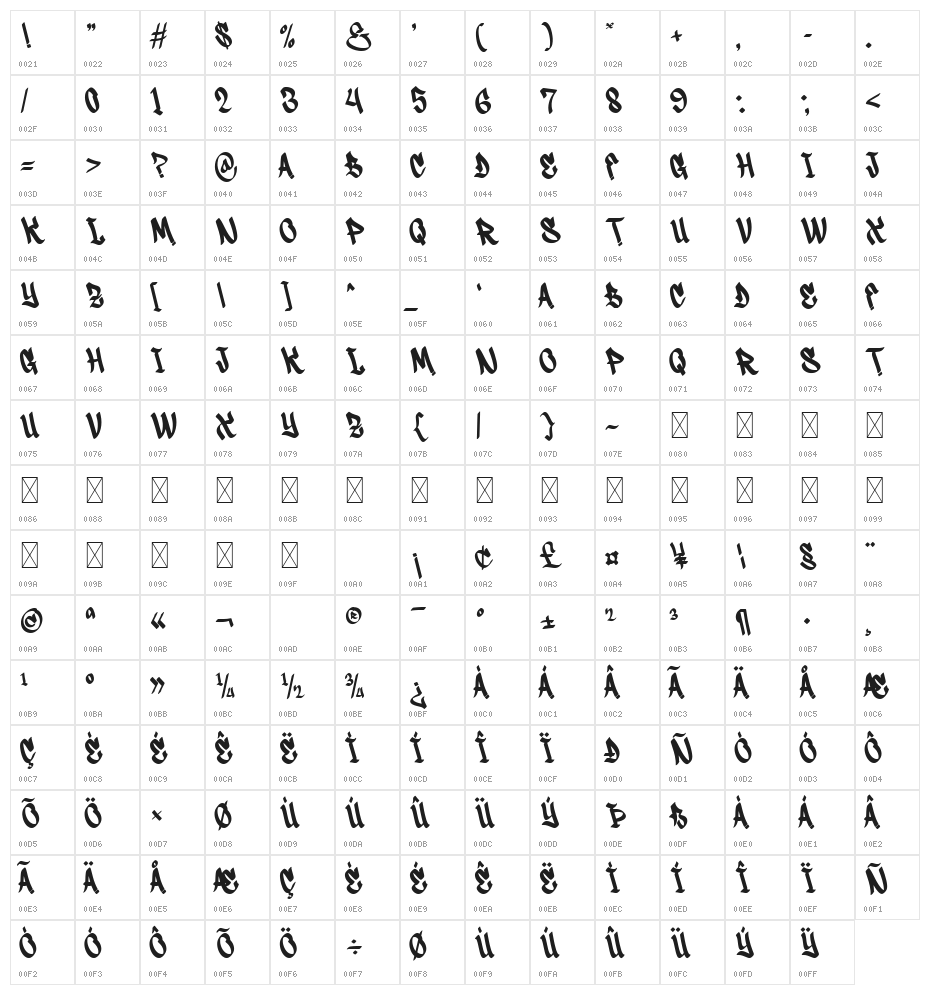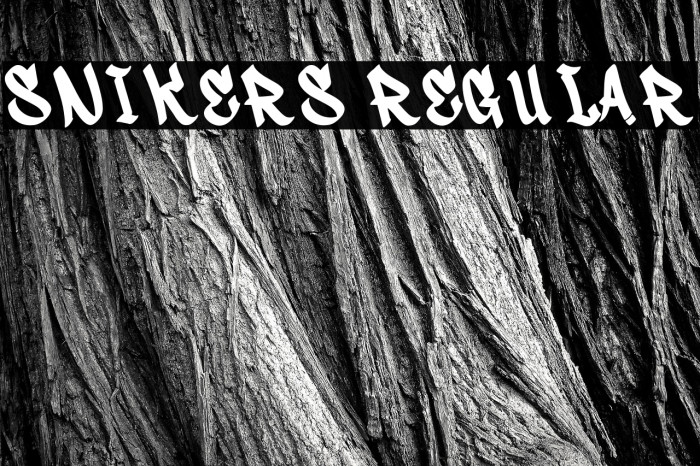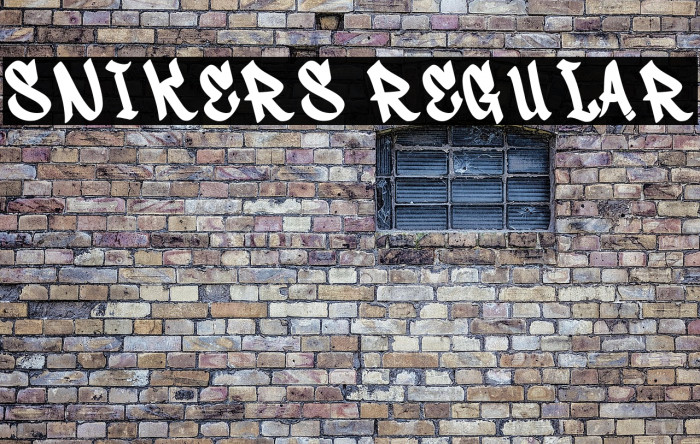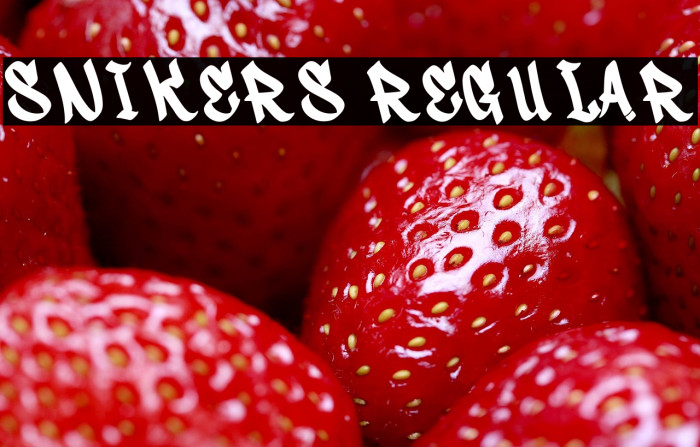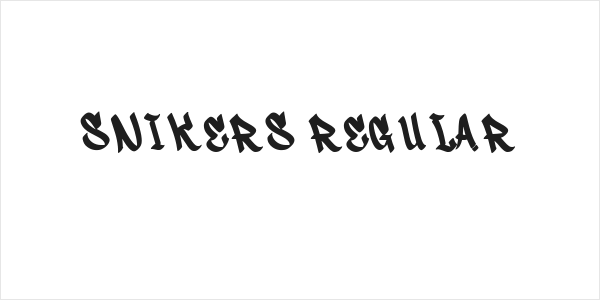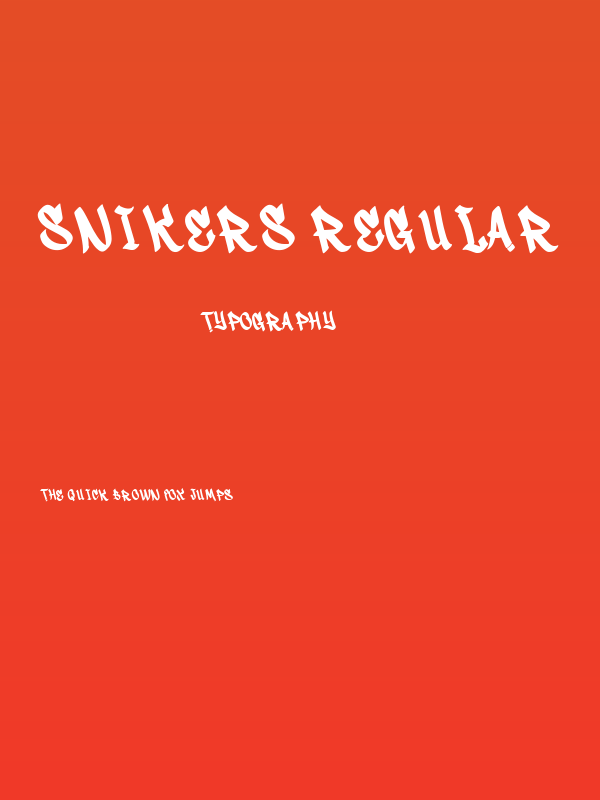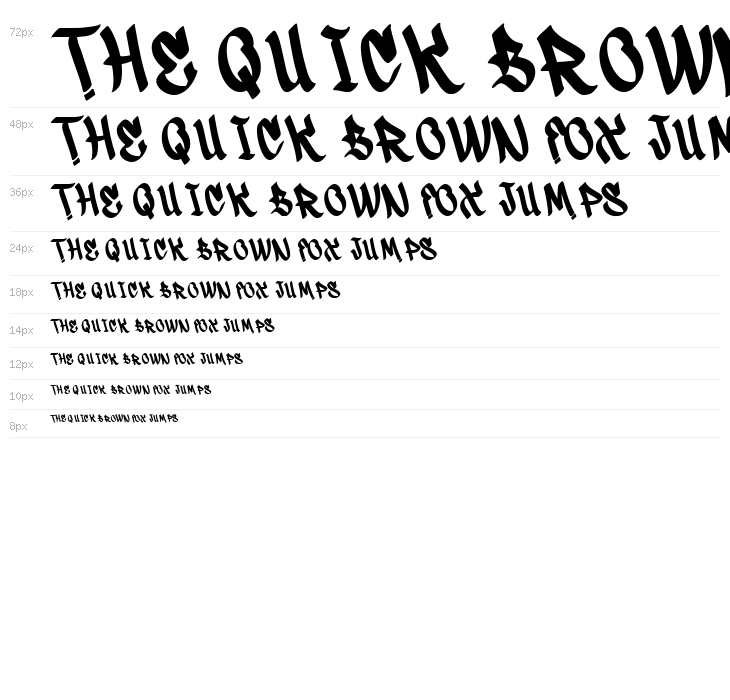
Snikers Regular Font
Snikers Regular Description
This font exhibits a bold and dynamic style with a strong presence. The characters are designed with a slight slant, giving them a sense of movement and energy. The strokes are thick and consistent, creating a robust and impactful appearance. The uppercase and lowercase letters maintain a cohesive look, while the numbers and special characters are crafted to match the overall aesthetic. The font's design is reminiscent of graffiti or street art, making it ideal for projects that require a bold and expressive typeface.